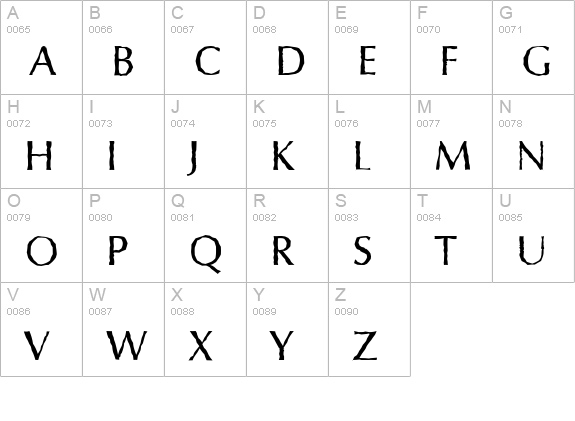
ColumbiaAntique-Regular is the standard, neutral variant in the ColumbiaAntique typeface family \xE2\x80\x94 well suited to general body text, paragraphs, and standard typographic work.
ColumbiaAntique-Regular is a classic and elegant serif font that exudes sophistication and timeless charm. Its meticulously crafted design features delicate serifs and graceful curves, making it perfect for creating refined and stylish designs. This versatile typeface is ideal for a wide range of projects, from wedding invitations to logos and branding. What makes ColumbiaAntique-Regular even more appealing is that it is available for free download at FontsMarket.com. This means that you can access this beautiful font effortlessly and use it to elevate your creative projects without any cost. Don't miss out on the opportunity to enhance your designs with the exquisite beauty of ColumbiaAntique-Regular – download it for free today!